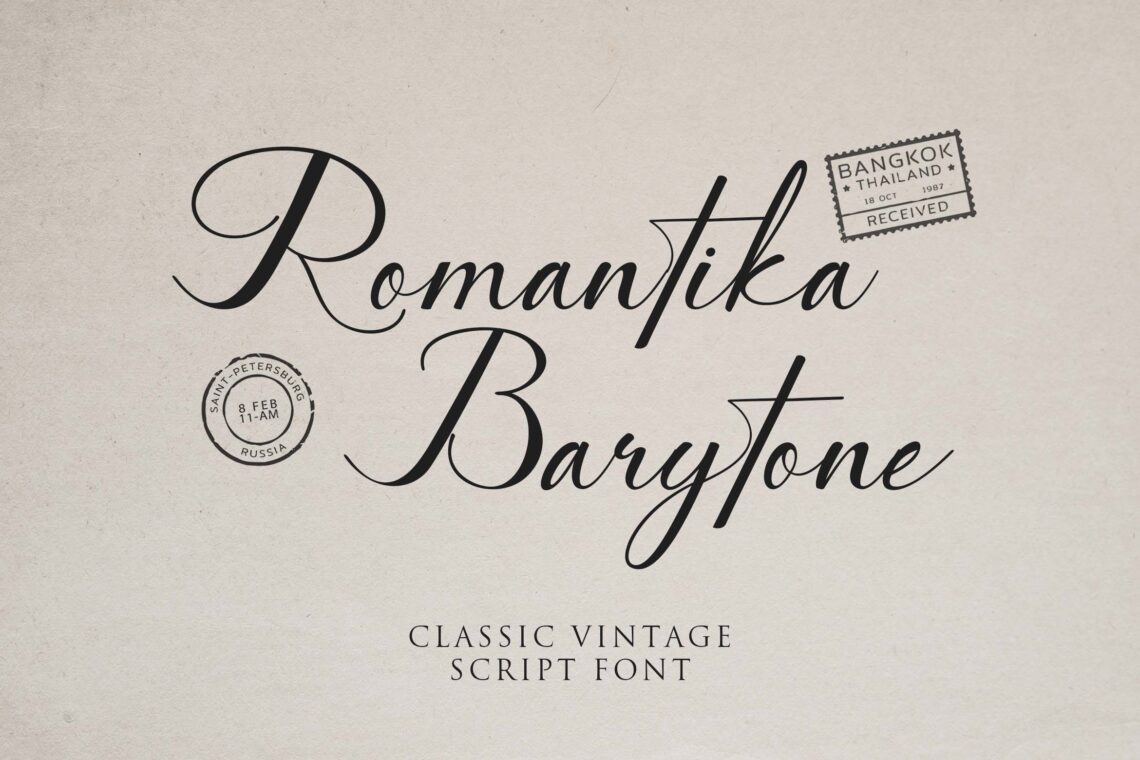
10 Best Trending Font 2025
Typography plays a powerful role in shaping visual identity, user experience, and brand personality. As design trends evolve, so do the typefaces that dominate the creative world. The trending font 2025 reflects a balance between modern minimalism and expressive individuality, with designers seeking fonts that are both functional and visually engaging. From sleek sans-serifs to bold experimental styles, the trending font 2025 sets the tone for everything from branding to UI design.
10 Best Trending Font 2025
In this article, we explore ten fonts that are defining the look and feel of design in 2025.
1. Brixanos Sans Serif Modern Font
Brixanos Sans Serif Modern Font is a clean, versatile typeface that blends minimalist structure with a contemporary aesthetic—making it ideal for branding, editorial design, web interfaces, corporate identity, and more. With its sharp lines, balanced letterforms, and professional tone, Brixanos offers a modern sans serif look that remains highly legible across print and digital formats.
Whether you’re designing logos, headlines, marketing materials, or UI components, Brixanos provides the clarity and style needed to elevate your work. Its sleek and confident appearance makes it a perfect fit for forward-thinking designers seeking both elegance and functionality in one font family.
2. Hiro Misake Brush Japanese Font
Hiro Misake Brush Japanese Font is a bold and expressive typeface inspired by traditional Japanese calligraphy, bringing the elegance and energy of brush strokes into modern design. Perfect for branding, posters, packaging, restaurant menus, and creative projects that seek an authentic Eastern aesthetic, this font captures the essence of hand-drawn artistry with a contemporary edge.
Its dynamic characters, organic flow, and cultural nuance make Hiro Misake ideal for conveying a sense of heritage, movement, and creativity. Whether you’re crafting a modern Asian-themed design or paying homage to classic brushwork, this font adds a distinctive and artistic flair to any visual composition.
3. Grace Signature Bursh Signature Font
Grace Signature Brush Signature Font is a sophisticated and flowing typeface that beautifully mimics the charm of hand-brushed signatures. With its graceful curves, natural strokes, and high-end feel, this font is perfect for branding, logos, wedding invitations, fashion labels, social media graphics, and personal stationery.
Designed to convey elegance and personality, Grace Signature adds a touch of authenticity and luxury to any project. Whether you’re crafting a feminine brand identity or adding a stylish signature to your design, this font offers the perfect blend of beauty and professionalism in every letter.
4. Headline Heritage Elegant Serif Display Font
Headline Heritage Elegant Serif Display Font is a timeless typeface that blends classic serif elegance with bold modern flair, making it ideal for headlines, editorial layouts, branding, packaging, and luxury designs. Featuring high-contrast strokes, refined curves, and distinctive serifs, this font commands attention while maintaining a sophisticated, heritage-inspired aesthetic.
Whether used in fashion magazines, upscale branding, or artistic posters, Headline Heritage brings a sense of prestige and style to any design. Its versatility and graceful letterforms make it the perfect choice for projects that demand both tradition and modern refinement.
5. Mirage Stellar Elegant Sans Serif Font
Mirage Stellar Elegant Sans Serif Font is a modern, refined typeface that blends minimalism with high-end sophistication. With its clean lines, balanced proportions, and subtle detailing, this font is ideal for branding, editorial layouts, fashion lookbooks, social media graphics, and upscale packaging.
Designed for versatility and elegance, Mirage Stellar delivers a sleek and contemporary look that elevates any design with clarity and class. Whether used in headlines or body text, this sans serif font communicates professionalism and beauty in a timeless, effortlessly stylish way.
6. Prestige Legacy Elegant Classy Font
Prestige Legacy Elegant Classy Font is a timeless typeface that radiates sophistication and high-end appeal, crafted for designers who seek luxury and refinement in every detail. With its graceful serifs, delicate curves, and stately presence, this font is perfect for upscale branding, wedding invitations, editorial layouts, fashion lookbooks, and premium packaging.
Prestige Legacy captures the essence of elegance and heritage, making it ideal for projects that demand a touch of class and a sense of enduring style. Whether you’re building a brand or telling a visual story, this font adds an unmistakable mark of prestige and beauty to your design work.
7. Romantika Barytone Classy Vintage Script Font
Romantika Barytone Classy Vintage Script Font is a charming and nostalgic typeface that blends the elegance of classic handwriting with a warm, vintage flair. Its flowing letterforms, delicate swashes, and refined strokes make it perfect for romantic branding, wedding invitations, retro-themed packaging, boutique logos, and editorial designs.